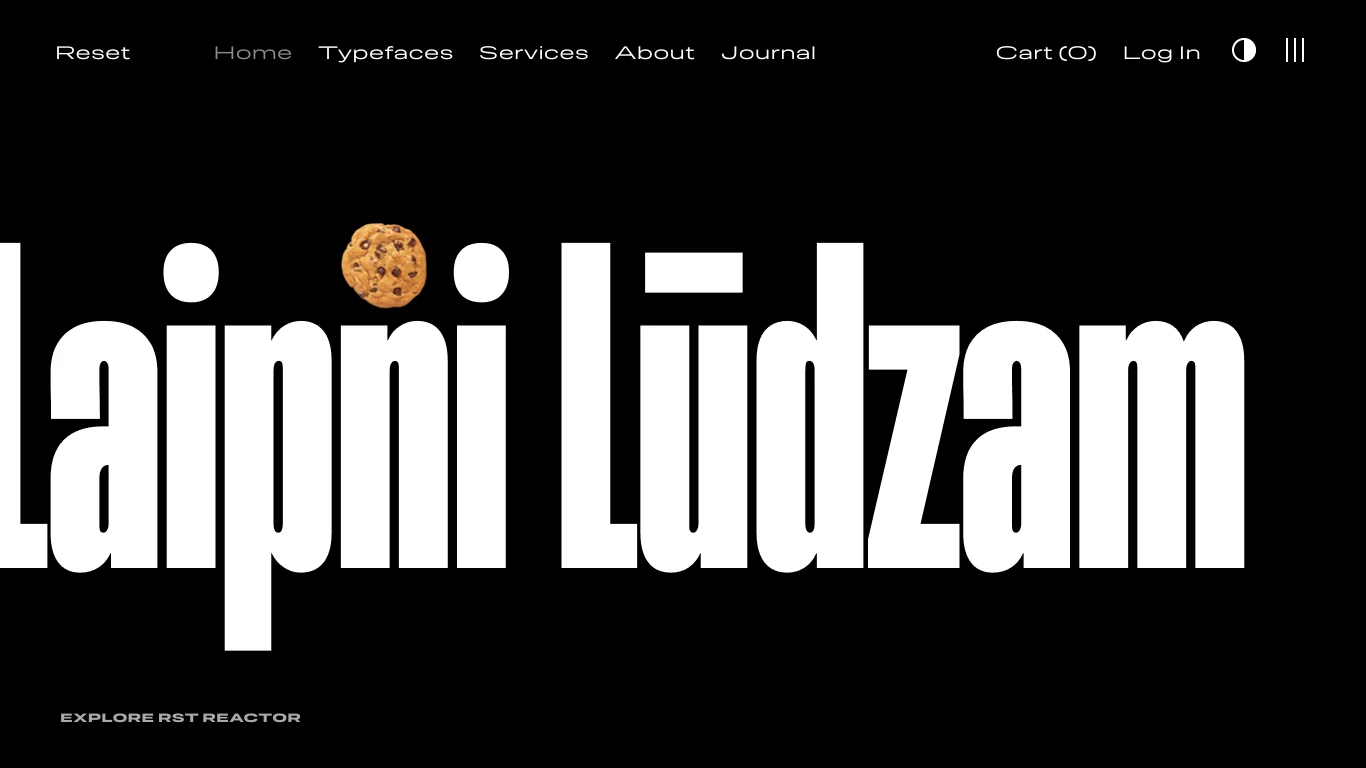
Uruguay
2023
Reset Type Studio is a Montevideo-based, independent type foundry founded in late 2023 by seasoned designers Fernando Díaz and Matías Di Iorio, later joined by Avril Ponce de León. Known for dynamic variable fonts, their work includes expressive families like RST Thermal, RST Reactor, RST Thundra, Mazumbá, and Silvestre, each crafted with rich OpenType features, extensive language support, and experimental axes. They serve both retail and custom clients, fostering a close, collaborative process with designers and offering early-access releases to gather user feedback. What makes Reset unique is its community-driven, variable-first ethos: the studio blends technical innovation, joyful teamwork, and scholarly engagement—providing free trials, academic discounts, workshops, and transparent, inclusive licensing from day one.